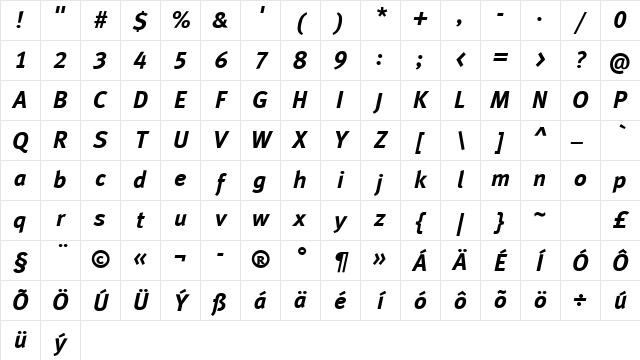
Complete MetaBoldCELF Italic glyph index. Displaying only characters natively supported by MetaBoldCELF Italic font.
MetaBoldCELF is a composed and adaptable typeface that performs quietly and consistently across a wide range of design contexts. The slanted form adds forward momentum and visual energy. Its bold stroke weight gives it real presence on the page.
Who designed the MetaBoldCELF Italic font?
This font was published by Erik Spiekermann, . Published by FontShop International for FontFont library. Meta is a trademark of FSI, Fonts and Software GmbH. Created by Erik Spiekermann, Dmitri Sorokin. Vendor URL: http://www.fontfont.de. Check the technical specs section for copyright and designer details.